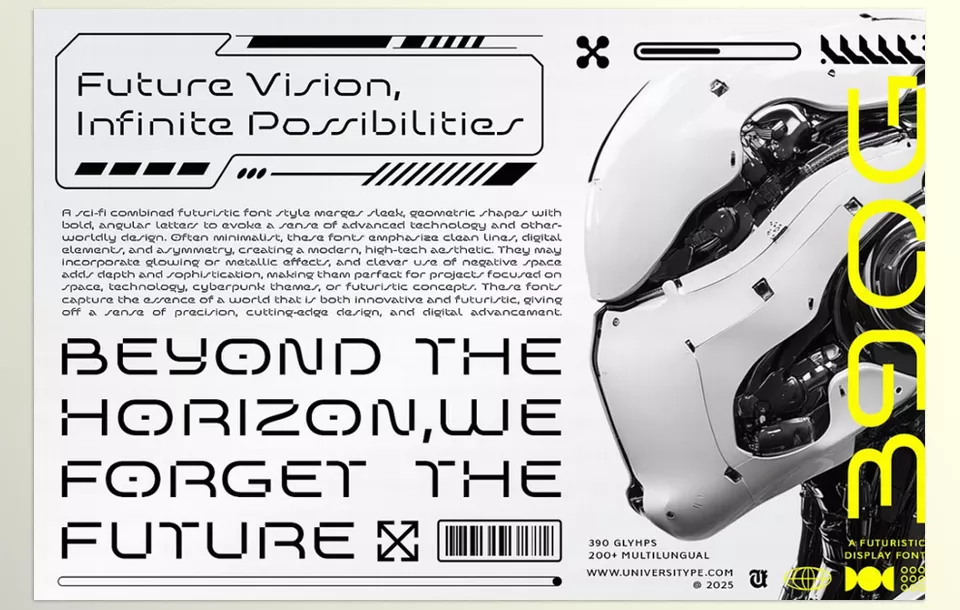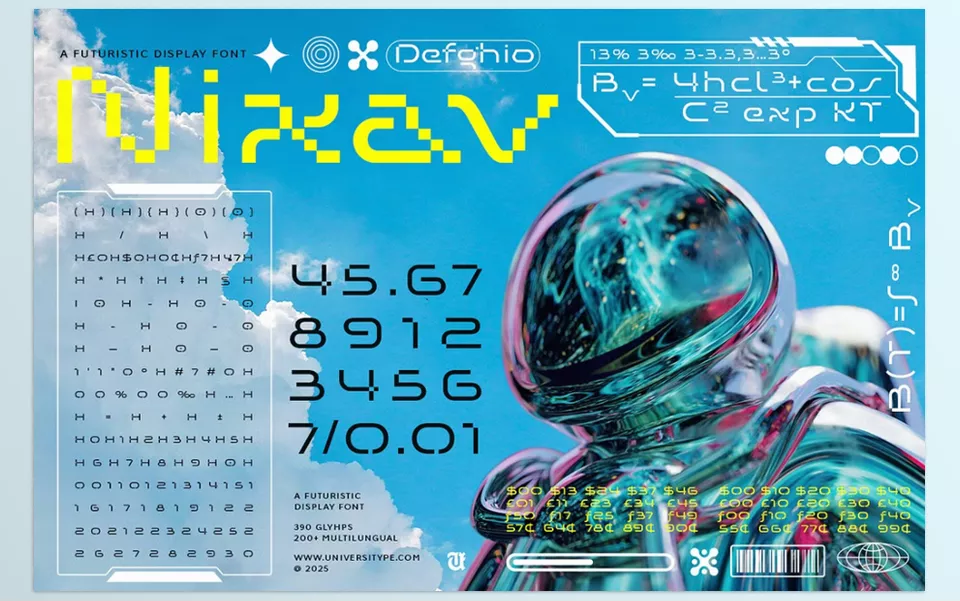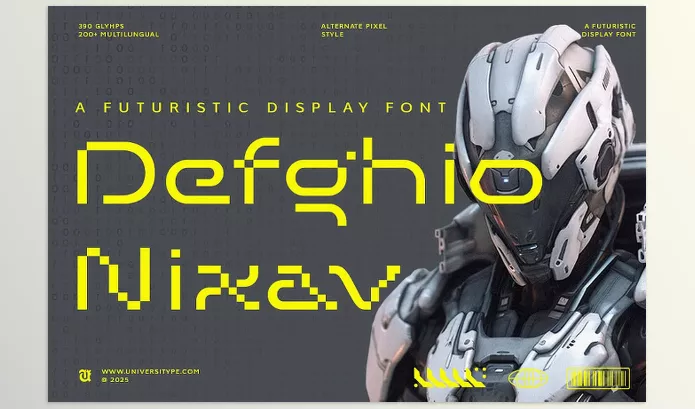
Creative Market – UT Defghio Nixav A Futuristic Font is specially designed for low and high-tech undertakings featuring a modern and geometrical style. The attention grabbing traits of each header feature like the sharp angles and glowing metallic details captures a bold audience.
Universitype – UT Defghio Nixav A Futuristic Font Features
• 390 Glyphs: A comprehensive set of characters ensuring design versatility.
• Multilingual Support 200+: Covers a wide array of languages from around the globe.
• Alternate Pixel Style: Retro Pixelated variants for a futuristic digital look.
• Sleek Geometry: Fuses bold angles and sharper lines to give a high-tech appearance.
• Asymmetry & Negative Space: Provides depth and new elegance to your designs.
Image 1: Elevate your design with bold, futuristic typography that blends precision and innovation.
Creative Market - UT Defghio Nixav A Futuristic Font - Elevate your design with bold, futuristic typography that blends precision and innovation.
Image 2: Transform your projects with sleek, high-tech fonts that capture the essence of tomorrow’s digital world.
Creative Market - UT Defghio Nixav A Futuristic Font - Transform your projects with sleek, high-tech fonts that capture the essence of tomorrow’s digital world.